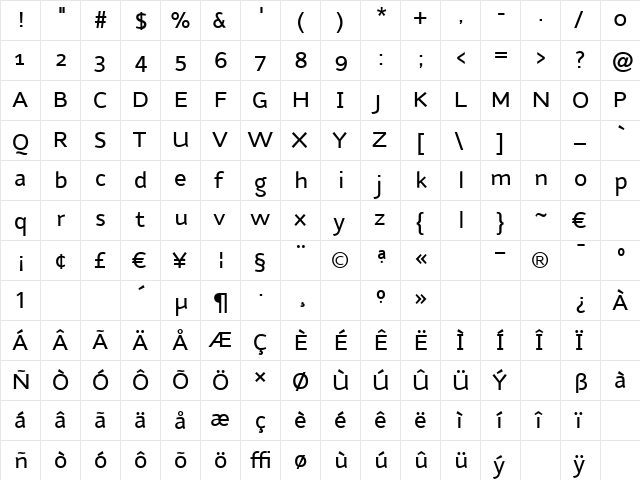
NubianMedium Regular
Design Context for NubianMedium Typeface
NubianMedium takes a measured approach to typography — its balanced proportions and neutral character make it a reliable workhorse for both digital and print work.